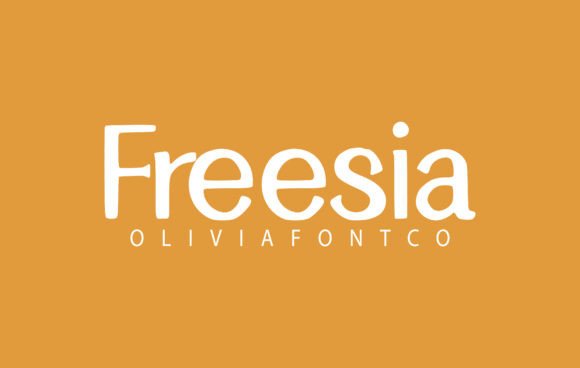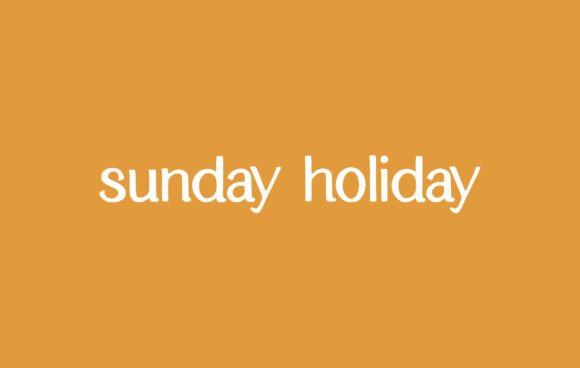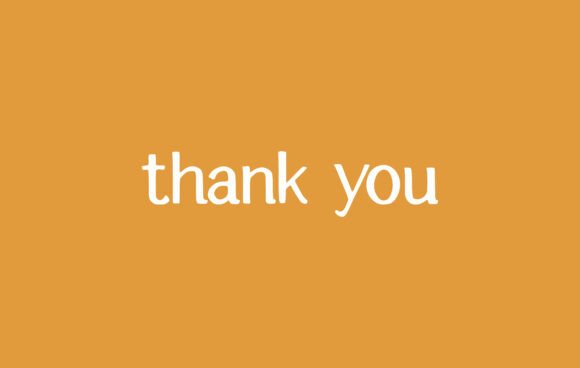
Freesia Font: A Romantic Handwritten Font for Wedding & Branding Design
About the Freesia Font
Elevate your designs with Freesia Font, a font that combines sophistication with readability. Freesia font is an authentic handwritten font with a romantic touch. Expertly designed to be a true favorite, this font has the potential to take your creative ideas to the highest level
Freesia’s romantic, handwritten style shines brightest in headlines, short-form text on invitations or social media graphics, and branding applications where a touch of elegance is desired. It works well for packaging where a premium feel is intended. However, its less-than-optimal x-height makes it unsuitable for large blocks of body text or UI elements requiring high legibility.
For a balanced aesthetic, pair Freesia with a clean sans-serif like Montserrat for a modern contrast, or a classic serif such as Garamond for a more timeless feel. A playful script font like Allura could enhance its romantic personality for projects needing a whimsical touch.
Freesia exudes a sophisticated yet approachable personality, best suited for brands focusing on beauty, fashion, weddings, or other products/services targeting a feminine demographic. Avoid using it for projects that demand a bold, strong, or strictly minimalist aesthetic.